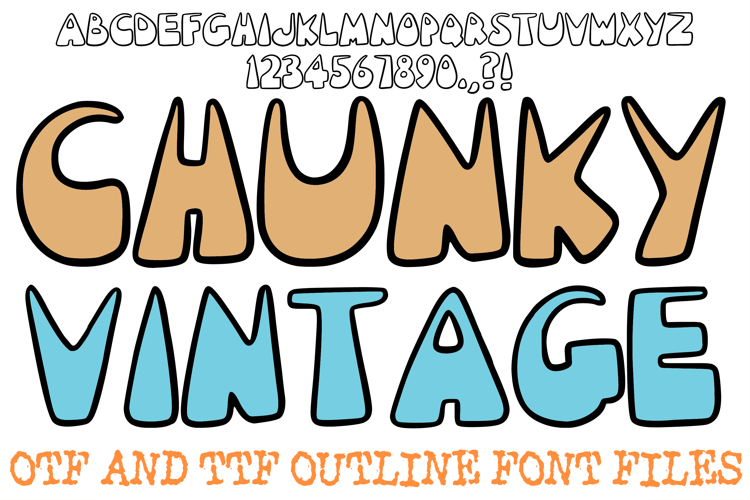
The Chunky Vintage Font is a bold and friendly display lettering set that features thick, rounded silhouettes and unique "teardrop" or "melting" inner counters. This design balances a heavy, high-impact weight with a soft, organic feel, making it an ideal choice for retro-inspired branding, children's apparel, playful stickers, and modern nursery decor.
The hand-drawn, "puffy" construction gives each character a sense of warmth and approachability. Whether you are creating a fun logo for a creative business, designing custom classroom materials, or crafting personalized digital planner stickers, the Chunky Vintage Font provides a professional, artisan-crafted aesthetic that feels both nostalgic and contemporary.
Soft Puffy Silhouettes: Thick, rounded edges and a chunky weight provide a friendly, balloon-like appearance.
Unique Teardrop Counters: The specialized inner cutouts give the alphabet a custom "melting" or liquid-inspired detail.